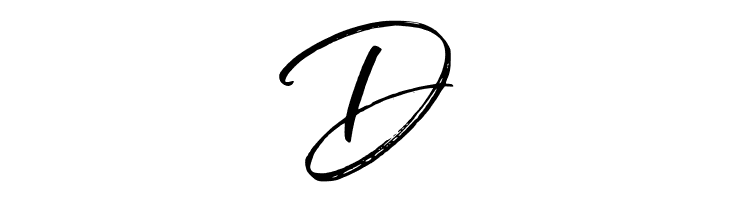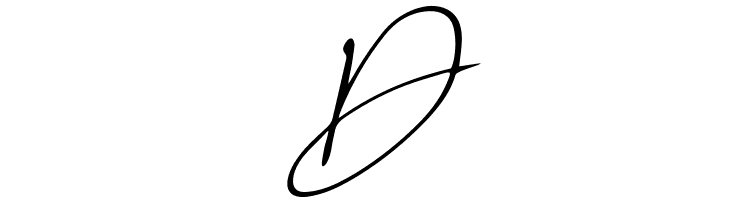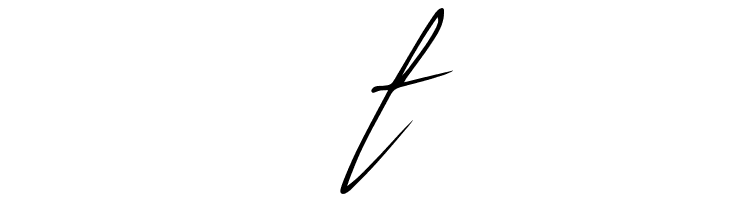
• Allisha
A flowing, cursive script with elegant, sweeping strokes.
• Allisha Croft Free Regular
An elegant and sophisticated script font with flowing curves and ornate swashes.
• Alliska
A lively, expressive handwritten font with a dynamic slant.
• Allison Franco
A bold, handwritten script font with a lively and modern style.
An elegant, expressive script font with fluid, dynamic strokes and artistic flair.
• AllisonDreamDemo-Regular
A fluid and elegant script font with a handwritten style.
• AllisonStyleScriptDEMO
A lively and fluid script font with a natural, handwritten style.
• Allissona GT Demo
A lively handwritten font with fluid and dynamic strokes.
• Allisya
A bold, expressive script font with flowing, cursive letterforms.
• Allisya Regular
An elegant, flowing script font with bold uppercase and delicate lowercase letters.